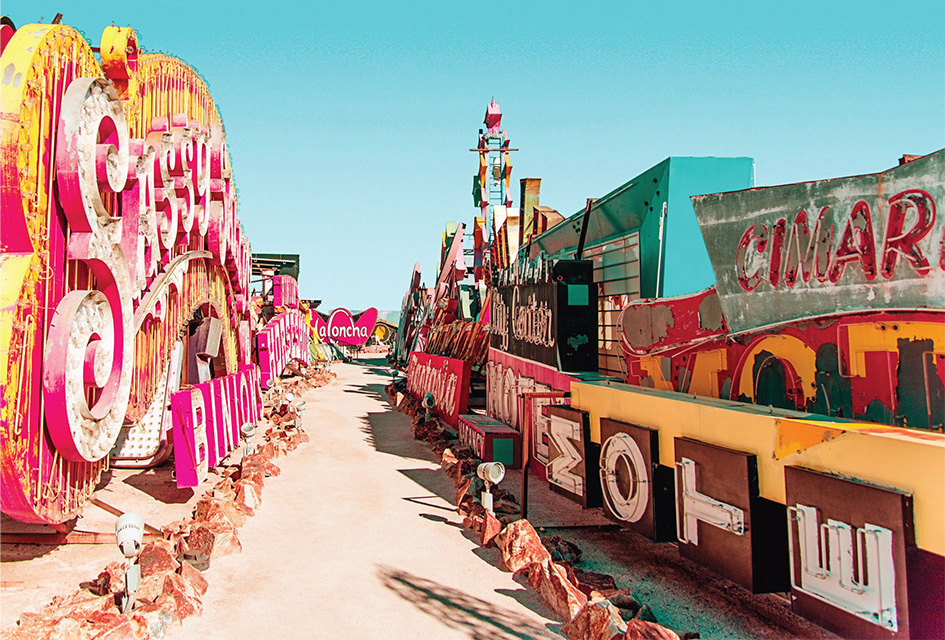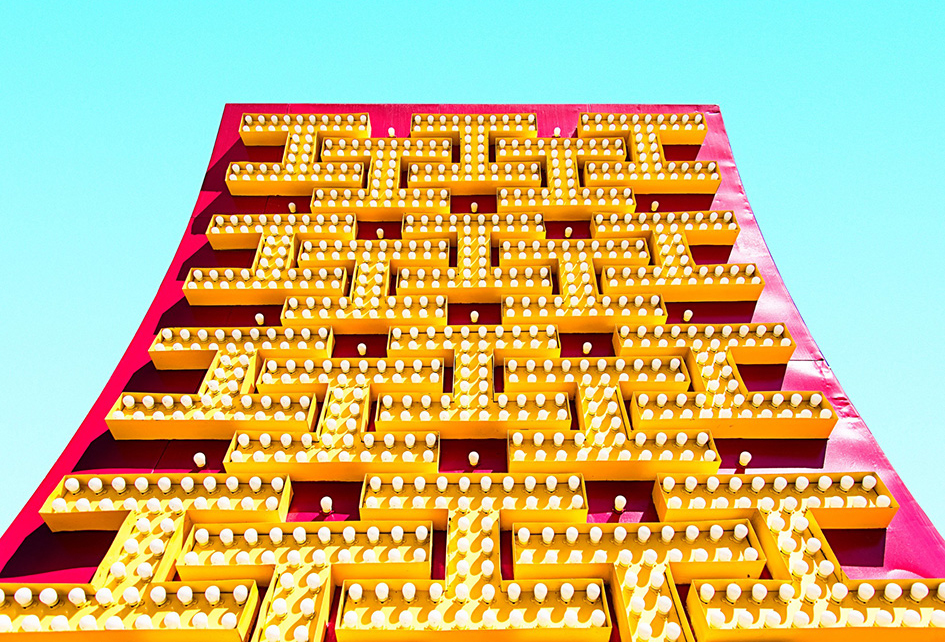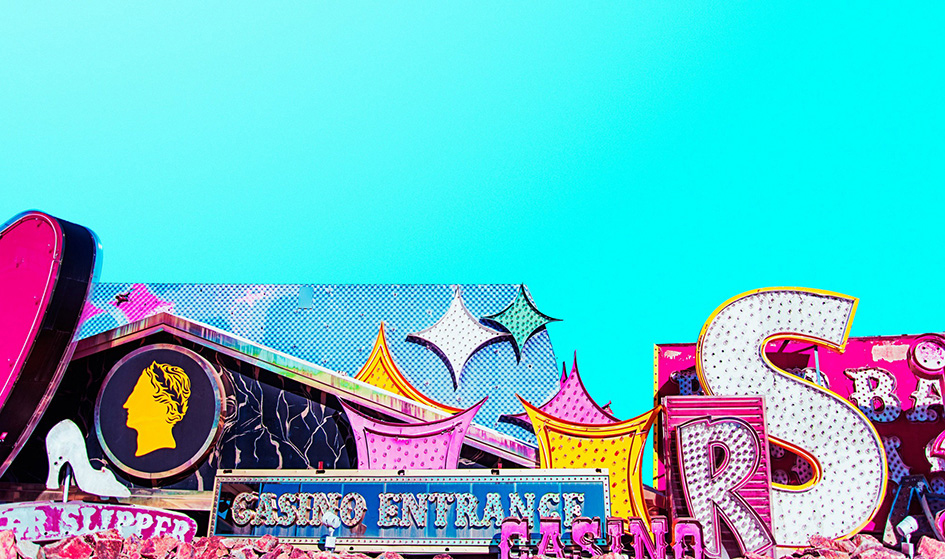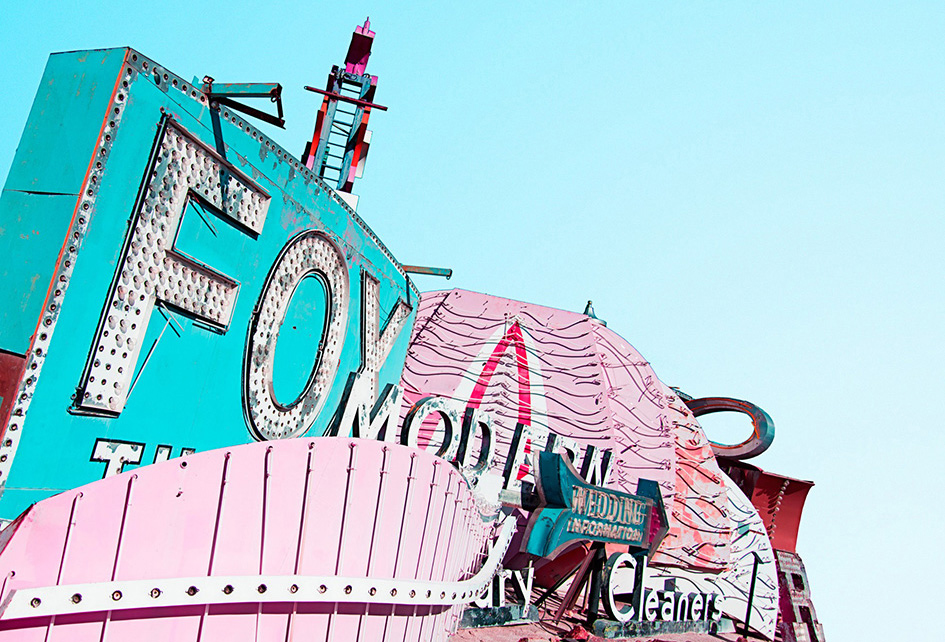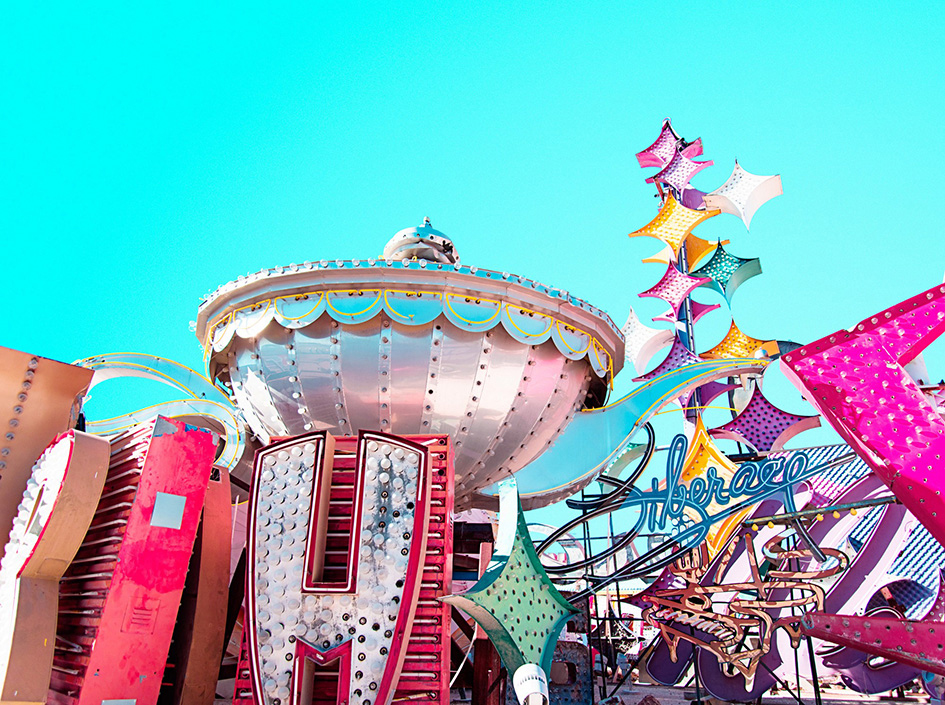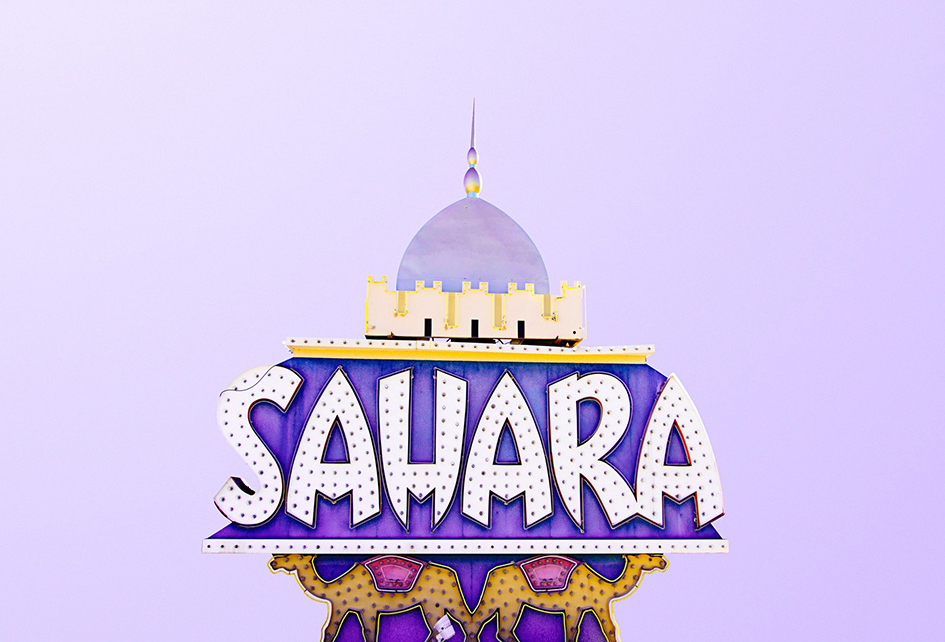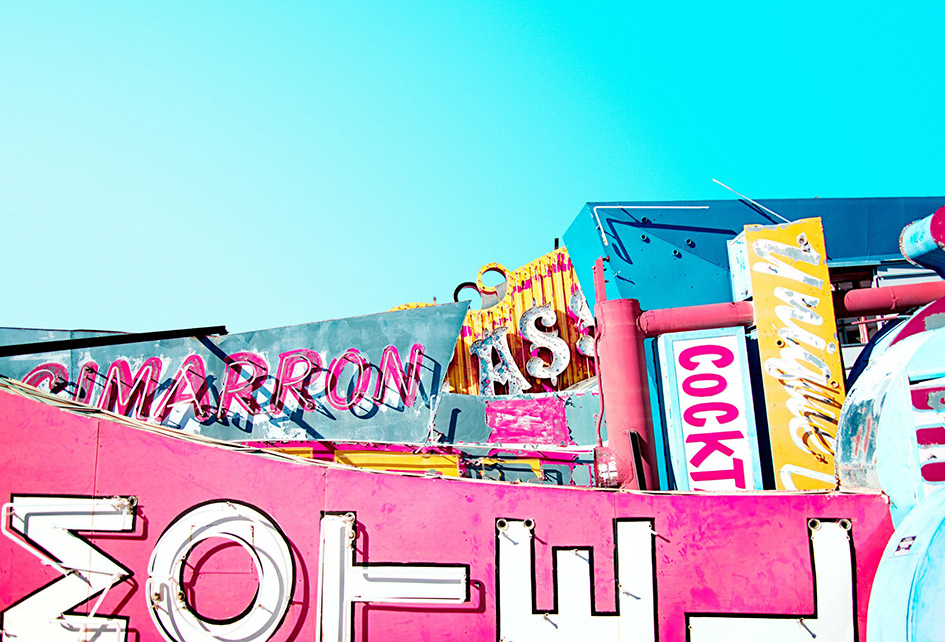
This is where the typographic neon sculptures go to rest
Signs, signs, signs! Letterforms that once brightly shone the way towards glitzy casinos are laid to rest. “Epically scaled neon signs and letters loomed over us, competing for our attention like giant, candy-colored shrines to a city built on dreams and bent on continual reinvention” writes photographer Matt Crump whose striking portfolio reminded us of this graveyard of vanities. “Signage is one of my favorite subjects. So visiting The Neon Museum in Las Vegas— the only institution in the world dedicated to salvaging iconic examples of the genre—was like stepping into heaven” he commented and we have to agree.
“We may be made of star stuff, as the astronomer Carl Sagan once said, but our imaginations contain a strong dose of “Stardust” — at least as the word appears here” writes NYT’s Edward Rothstein. “The capital S, its 17-foot-tall body peppered with bulbs, is shaped like a coy lightning bolt. Its jagged strokes change thickness and meet at unexpected angles, like the stylized clothes of “The Jetsons.” The T’s are like toon sketches of rays shooting from stars. And the whole word here — though not lighted up with pulsing energy as it once was — seems to conjure fantasy.” The open-air Neon Museum in Las Vegas is a wonderland for every typophile out there.
From the crown jewel of the museum’s collection, the retro-futuristic lobby of the La Concha Motel which was shut down in 2003 to the “boneyard” with more than 150 unrestored artifacts, this is a magical place full of aged neon relics. Since 1996 the museum attempts to rescue remnants of an era long forgotten. “Las Vegas is the only town in the world whose skyline is made up neither of buildings, like New York, nor of trees, like Wilbraham, Mass., but signs” wrote Tom Wolfe during the 60s, when the Renaissance of Neon was really happening. This is a haven for slab serifs and ligatures, for dusted ascenders and descenders.
The Neon Boneyard is a haven for slab serifs and ligatures, for dusted ascenders and descenders.
When tourists think of Las Vegas, their first impression of the Sin City often comes from the world’s most famous neon attraction. Designed by Betty Willis, the “Welcome to Fabulous Las Vegas, Nevada” sign has been greeting visitors at the southern end of the Strip since 1959. Situated in a large industrial backlot, the Neon Boneyard is a tangible history of design with over 150 typographic sculptures from the 1930s to present day. This typographic jackpot originated from storage lots owned by major sign manufacturers like the Young Electric Sign Company, also known as YESCO. “Marquee signs announce the rat-pack era with glitz and glam and bulbs aplenty to serve performers like Sammy Davis Jr. and Sinatra” writes graphic designer Josh Smith. “A well-informed guide recaps the story of when the Stardust lettering was later replaced by Futura Bold when the hotel decided to take on a more corporate persona. When the angry local community protested, management formally apologized to the public and re-instated as much of the former signage as possible (who says the public doesn’t care about typography?).” Nobody, as far as we are concerned.
“Neon signs arguably put Las Vegas on the map” comments photographer Judy Natal who was so inspired by it that she spent 4 years capturing historic casino signs in large-format color photographs that spotlight the 26 letters of the alphabet for her book Neon Boneyard Las Vegas A-Z. “Considered the true art form of the city, they tell an elaborate story of the history of Las Vegas, with the first neon sign appearing around 1929. Sign development exploded in the 1930s, grabbing not only the attention of the drivers speeding through the Mojave but the entire country. America in general, and Las Vegas in particular, continues it’s love affair with neon to this day. And where do these signs go when they age, when they grow old and tired, and technology has passed them by?” Here, in this absolute homage to the illuminated typography of yesteryear, in this peaceful sanctuary of signs and letters, in the Neon Boneyard.
When the Stardust lettering was replaced by Futura Bold the angry local community protested
“Las Vegas is the only town in the world whose skyline is made up neither of buildings, nor of trees but signs” wrote Tom Wolfe
Neon signs, the true art form of the city, tell an elaborate story of the history of Las Vegas, with the first appearing around 1929